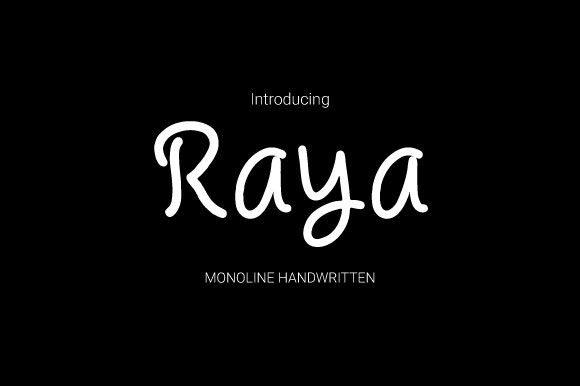
Raya Font
About Raya Font
Raya is a sweet and delicate handwritten font. With its distinct and playful style, this font is incredibly versatile, fitting a wide pool of designs!